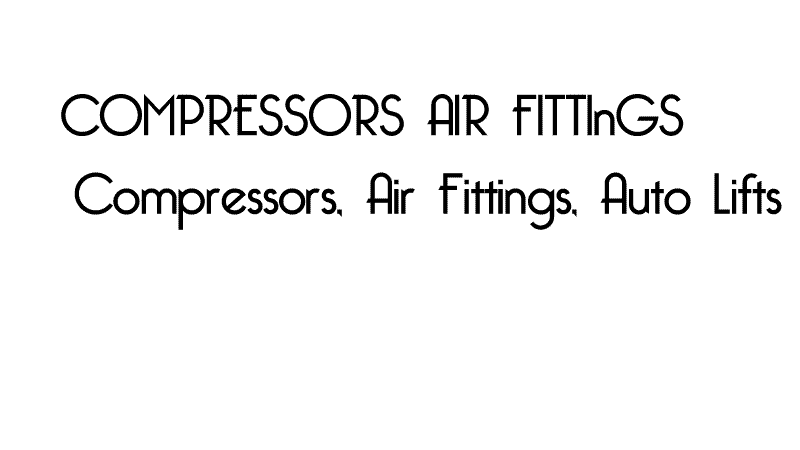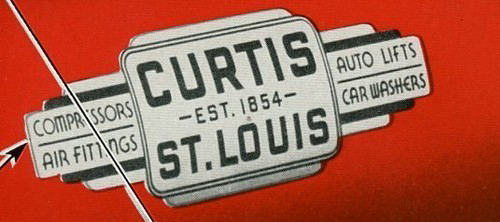
Font ID Please
Hello, I'm trying to replicate this logo from 1948 for a restored air compressor and I need help to identify the fonts in this logo.
I think I have the center font (Curtis Compressor) as Bank Gothic only the ends of the C and S are squared off in the photo.
It's the Compressors, Air Fittings, Auto Lifts and Car Washers that I'm having trouble identifying and need the help of the members.
It's not exact but "Bellerose" looks like it. You may have to substitute the uppercase "M" and "N" with the lowercase counterparts to get the rounded tops. Hope that helps.
Thanks hired that's close and you're correct I'll have to use lower case M and N. Also the upper case E is different.